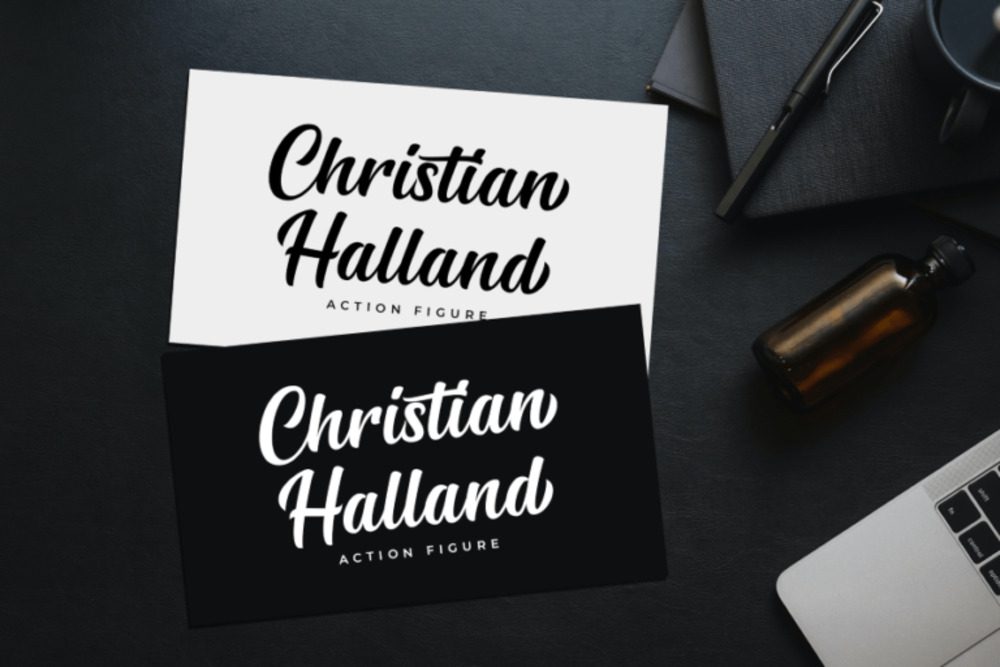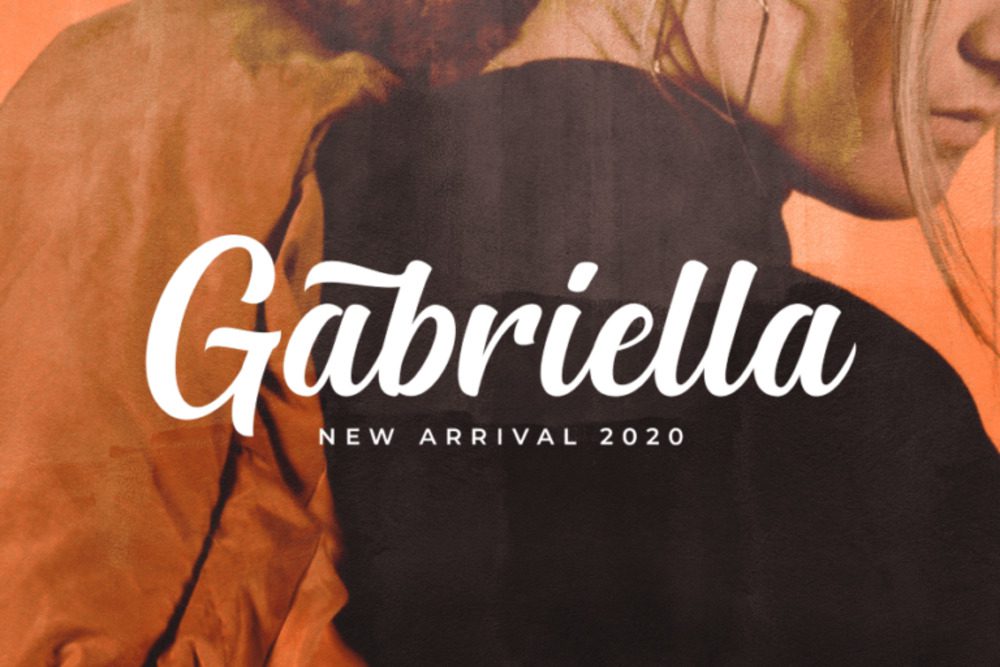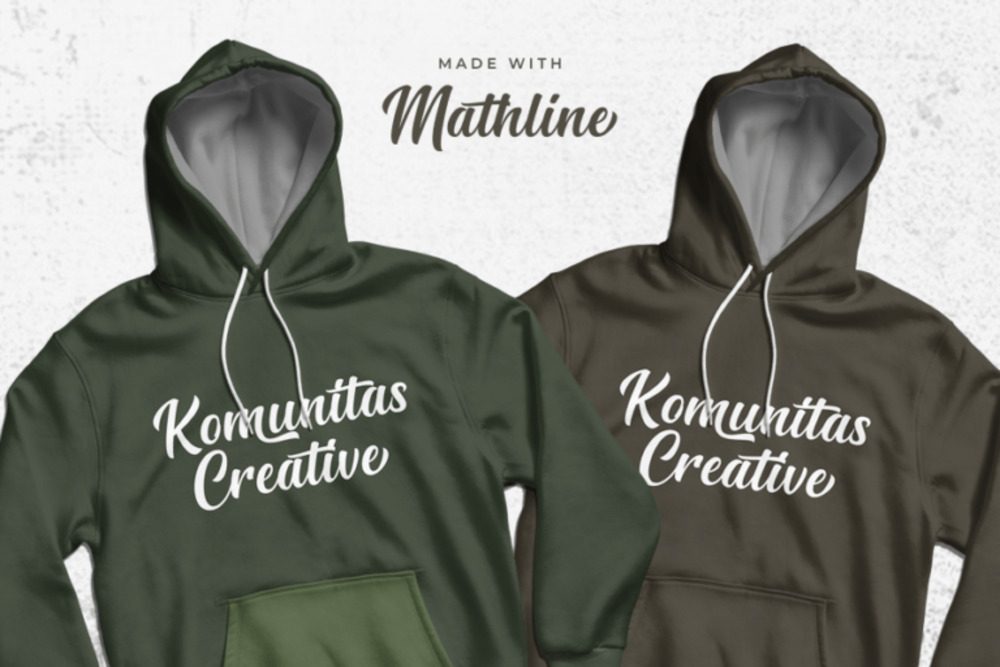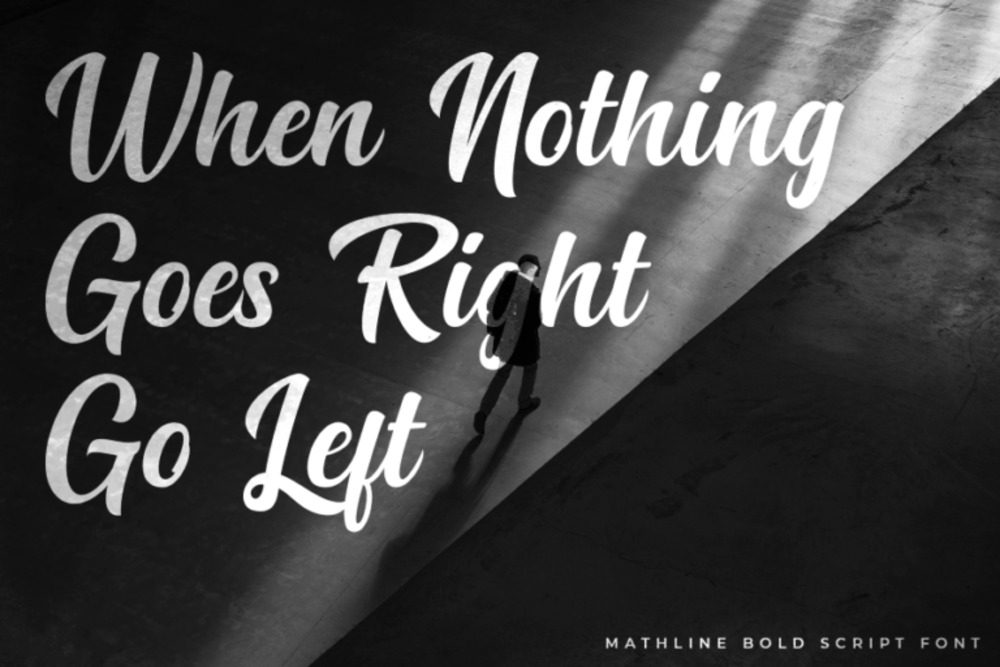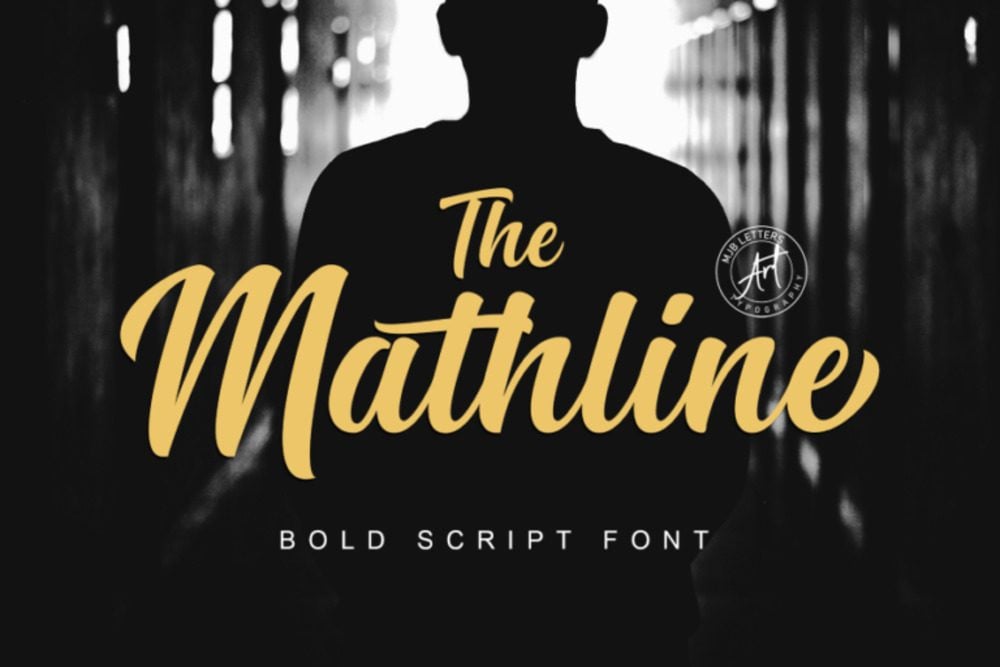
Mathlin Font
Mathlin display font with a strong, classic feel. Inspired by traditional typography and newspaper headlines, it’s designed for impactful display use. Its condensed form allows for more text in limited spaces, making it suitable for headlines, posters, and other prominent text elements. Maltiner Display aims for a bold yet refined aesthetic.